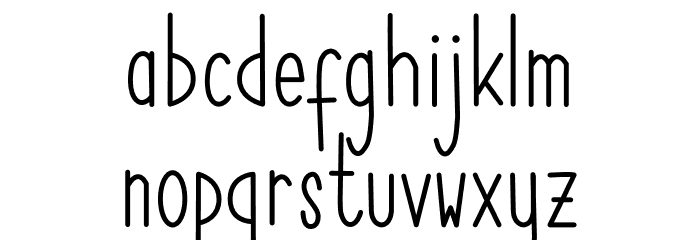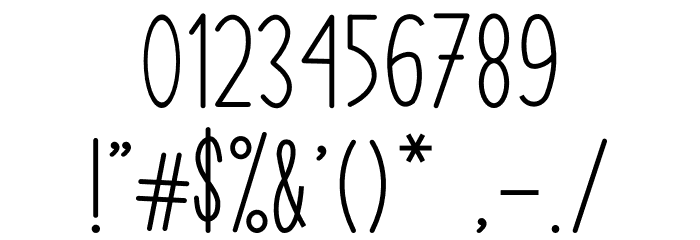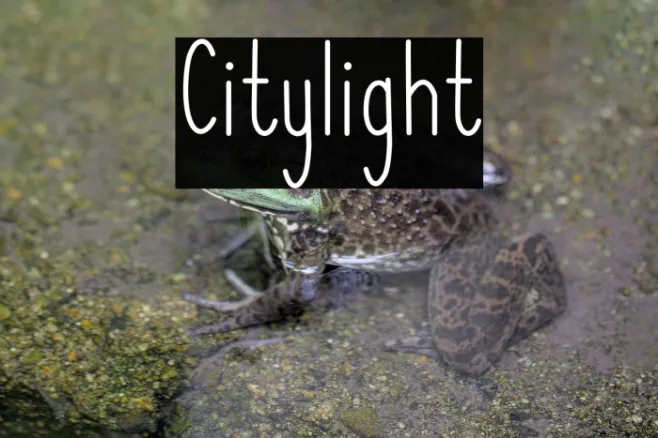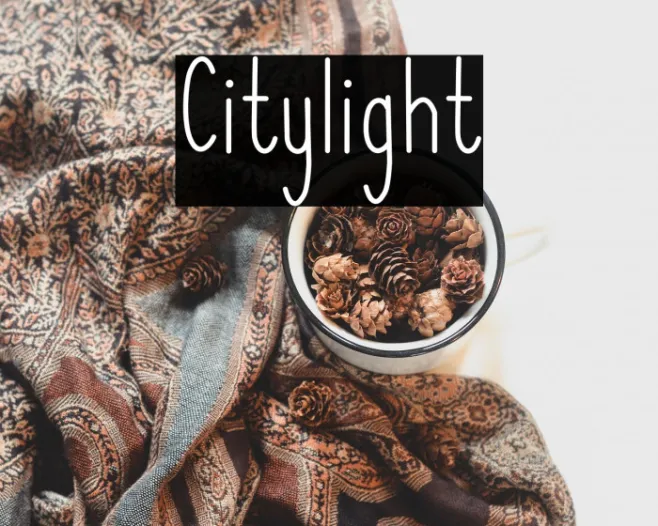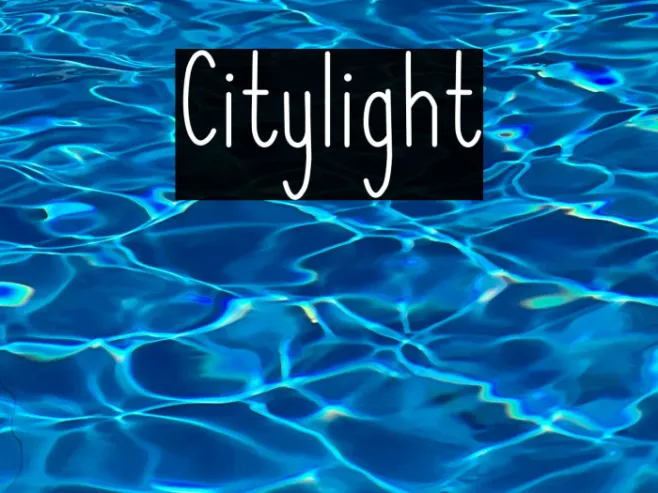
Citylight Font
This font features a playful and modern handwritten style, characterized by its tall and narrow letterforms. The strokes are consistent in width, giving it a clean and uniform appearance. The uppercase letters are slightly taller than the lowercase, maintaining a cohesive aesthetic. The numerals are well-proportioned, aligning seamlessly with the overall design. Special characters are included, enhancing its versatility for various applications. Its simplicity and readability make it suitable for both digital and print media.
A modern, playful handwritten font with tall, narrow letterforms.
- Proposed Projects: Ideal for children's books, casual invitations, greeting cards, and playful branding.
- Use Case: Headlines, Logos, Casual Text